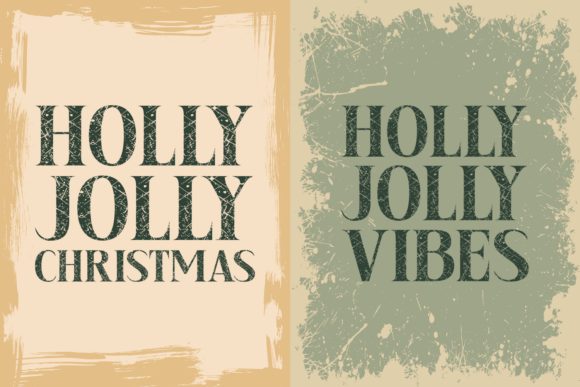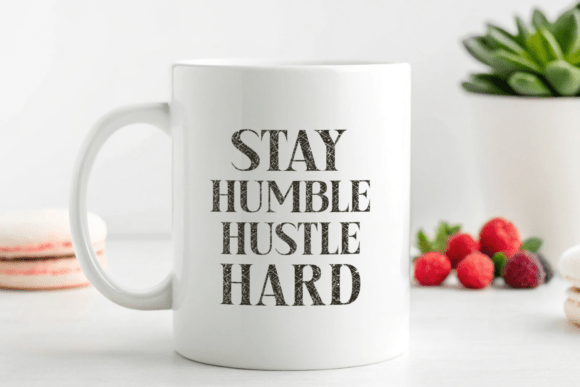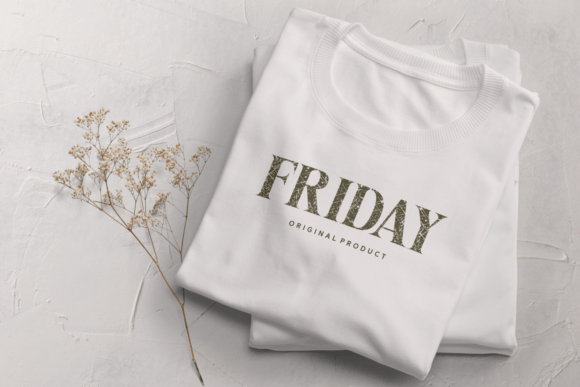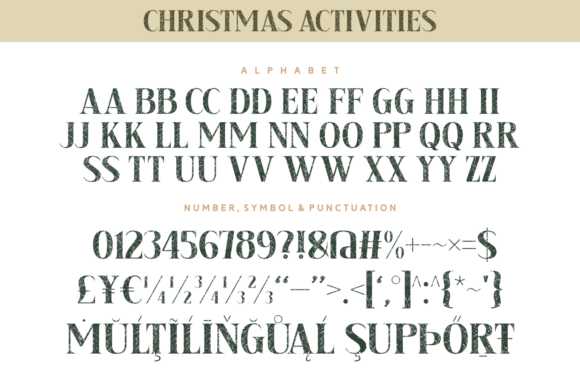
Introduction to Christmas Activities Font
As you sit by the fireplace, surrounded by twinkling lights and the warmth of the holiday season, you can’t help but feel the urge to get creative. The Christmas Activities Font is more than just a design element – it’s a spark that ignites your imagination and sets your creative juices flowing. This enchanting font is a treasure trove of vintage charm and grunge aesthetics, perfectly capturing the essence of the holiday season.
For designers, the Christmas Activities Font is a valuable resource that offers endless possibilities for creative projects. With its subtle old-style elements and edgy alternative appeal, it’s a versatile design tool that can be used for a wide range of applications, from apparel and book covers to branding and packaging. Its clean and uncluttered design makes it perfect for greeting cards, logotypes, and magazines, while its high-quality and transparent background ensure a professional finish.
Key Features of Christmas Activities Font
- High-quality design: This Christmas Activities Font boasts a beautiful, intricate design that’s perfect for adding a touch of holiday cheer to your artwork.
- Unique characteristics: The font’s unique, hand-drawn style and ornate details make it stand out from other fonts, adding a touch of elegance and sophistication to your design.
Honest Review: Christmas Activities Font
As a designer, I was excited to dive into the Christmas Activities Font and see if it would be a valuable addition to my design resources. ✨ One of the standout features of this font is its high-quality design, with clean lines and a clear, easy-to-read style that makes it perfect for a variety of creative projects.
- ⚠️ Limited font styles (only one style available)
- ⚠️ Not ideal for complex or professional designs
Overall, I was impressed with the Christmas Activities Font and would definitely recommend it to designers who are looking for a free, high-quality font to add to their design library. While it may not be suitable for every project, it’s a great option for casual, creative projects and a great addition to any design resource collection.
The Christmas Activities Font is ideal for creating festive designs and graphics for Christmas cards, invitations, and decorations. You can also use it to create holiday-themed social media posts and advertisements.